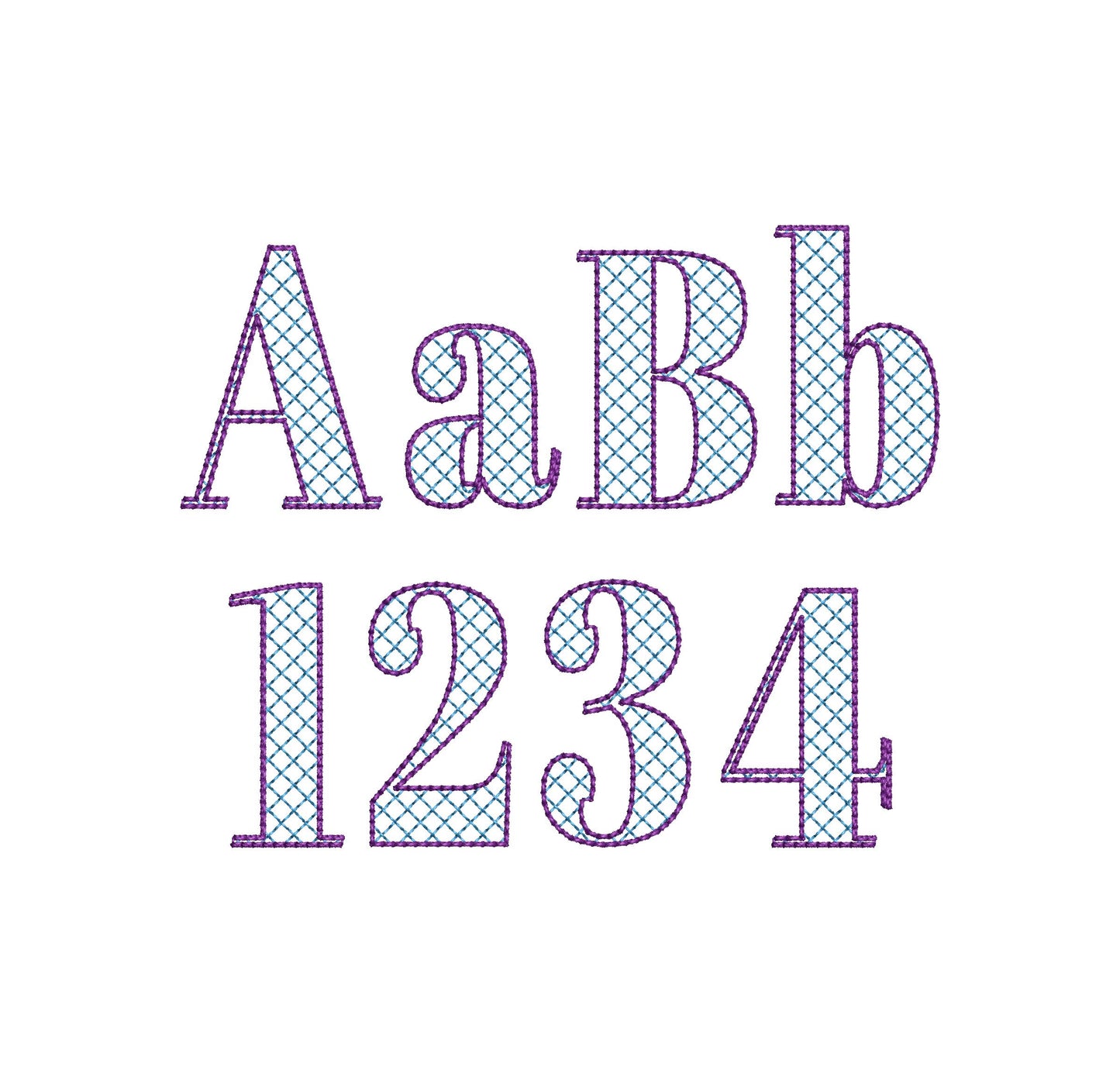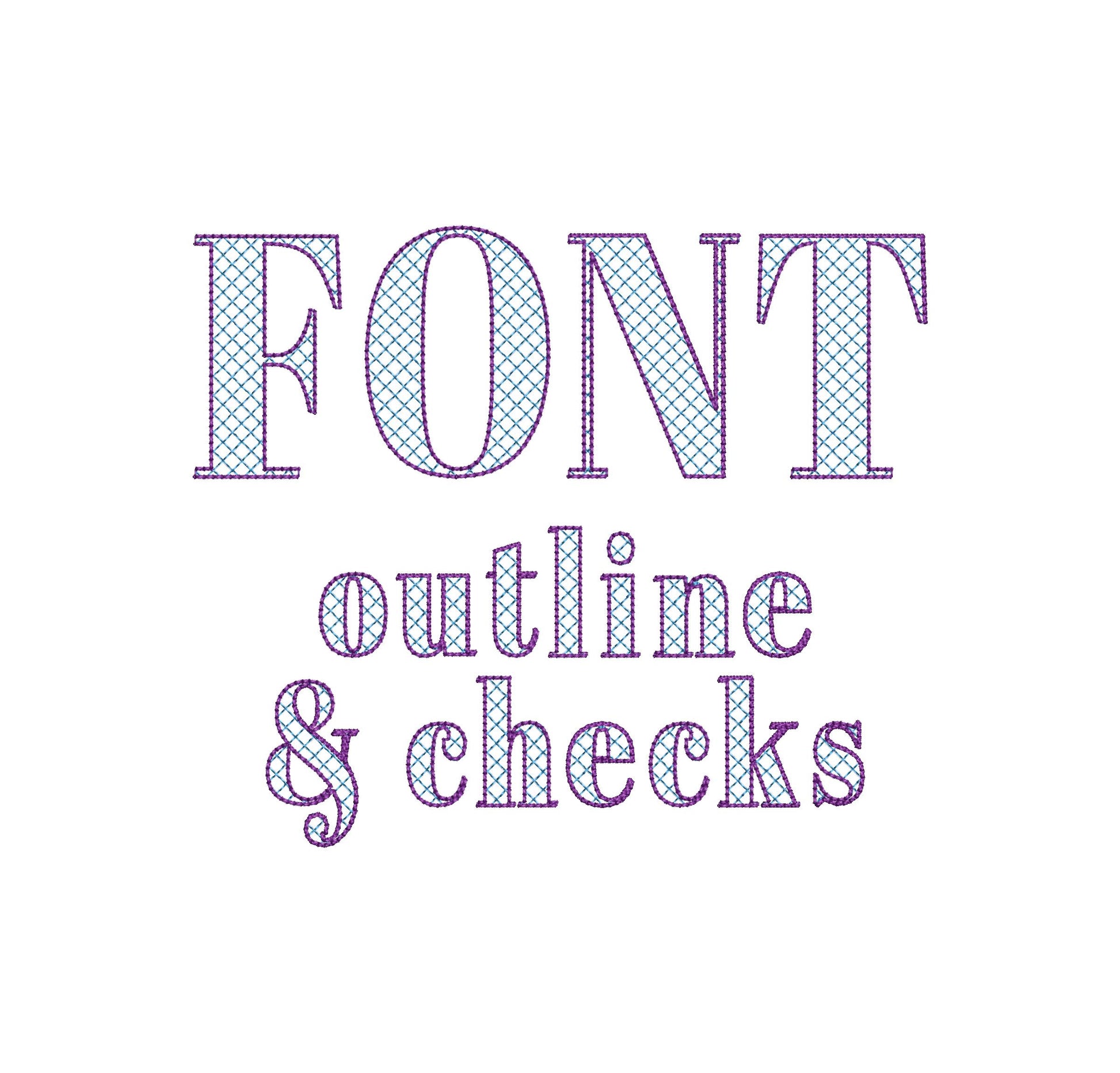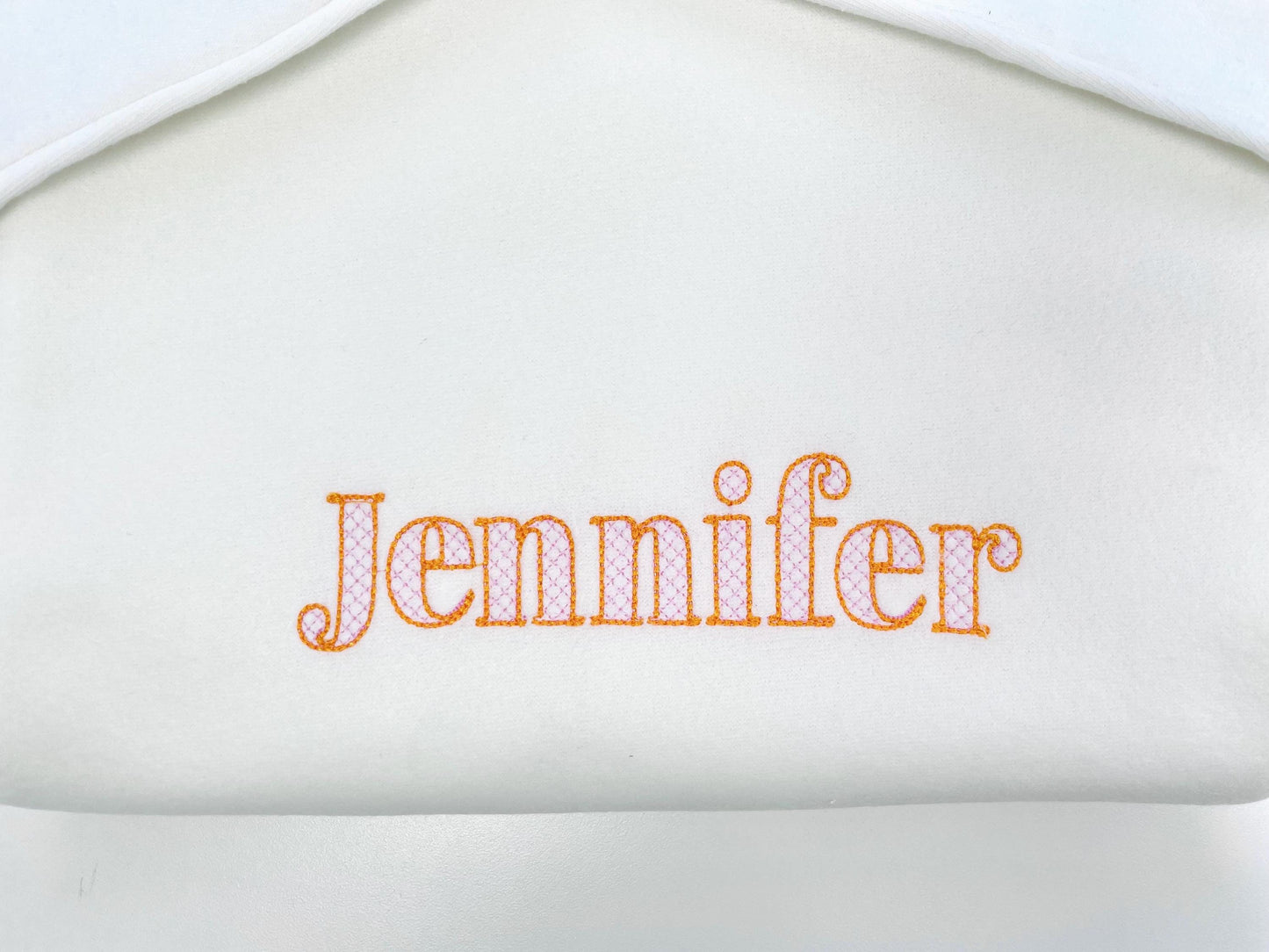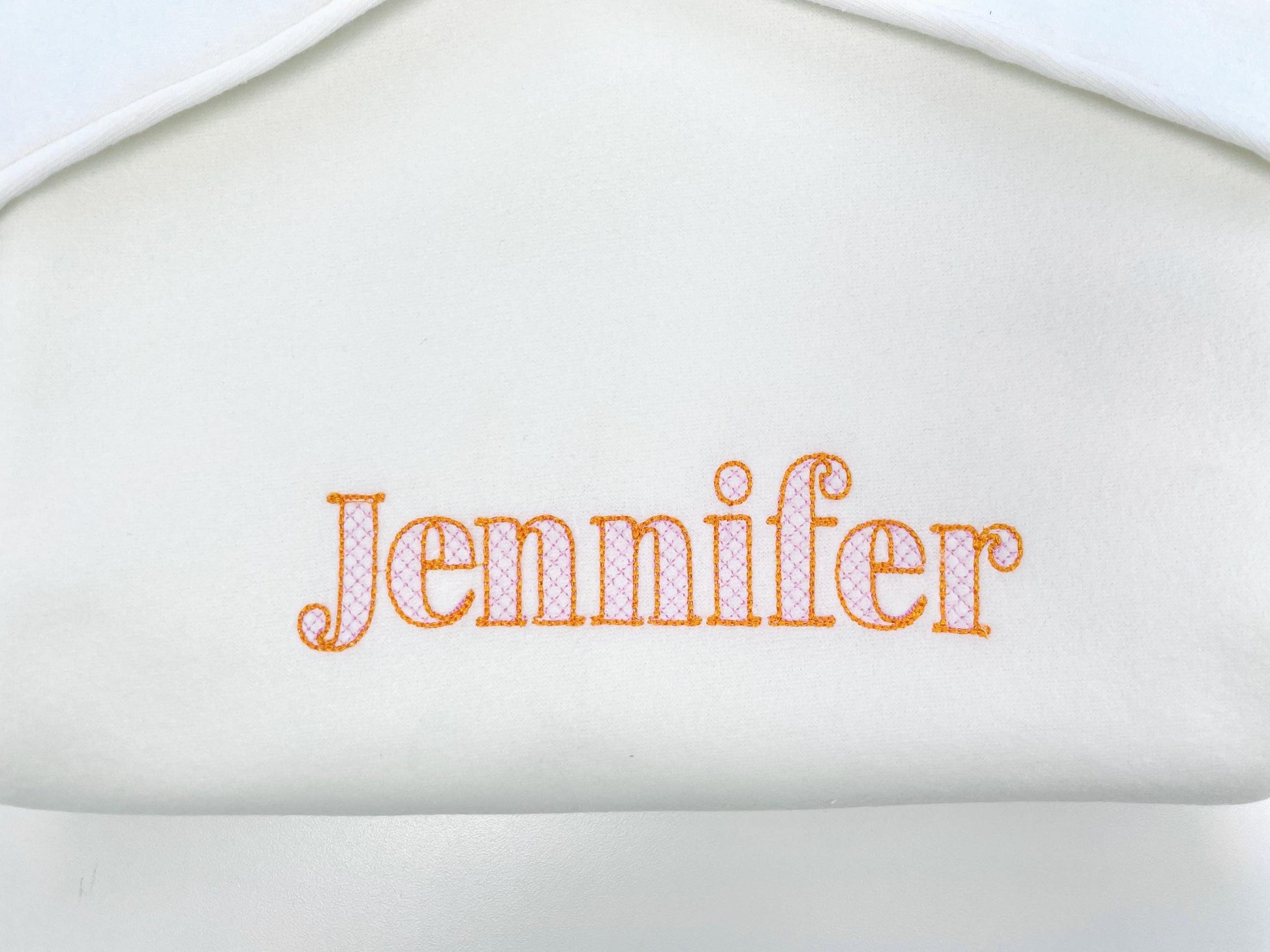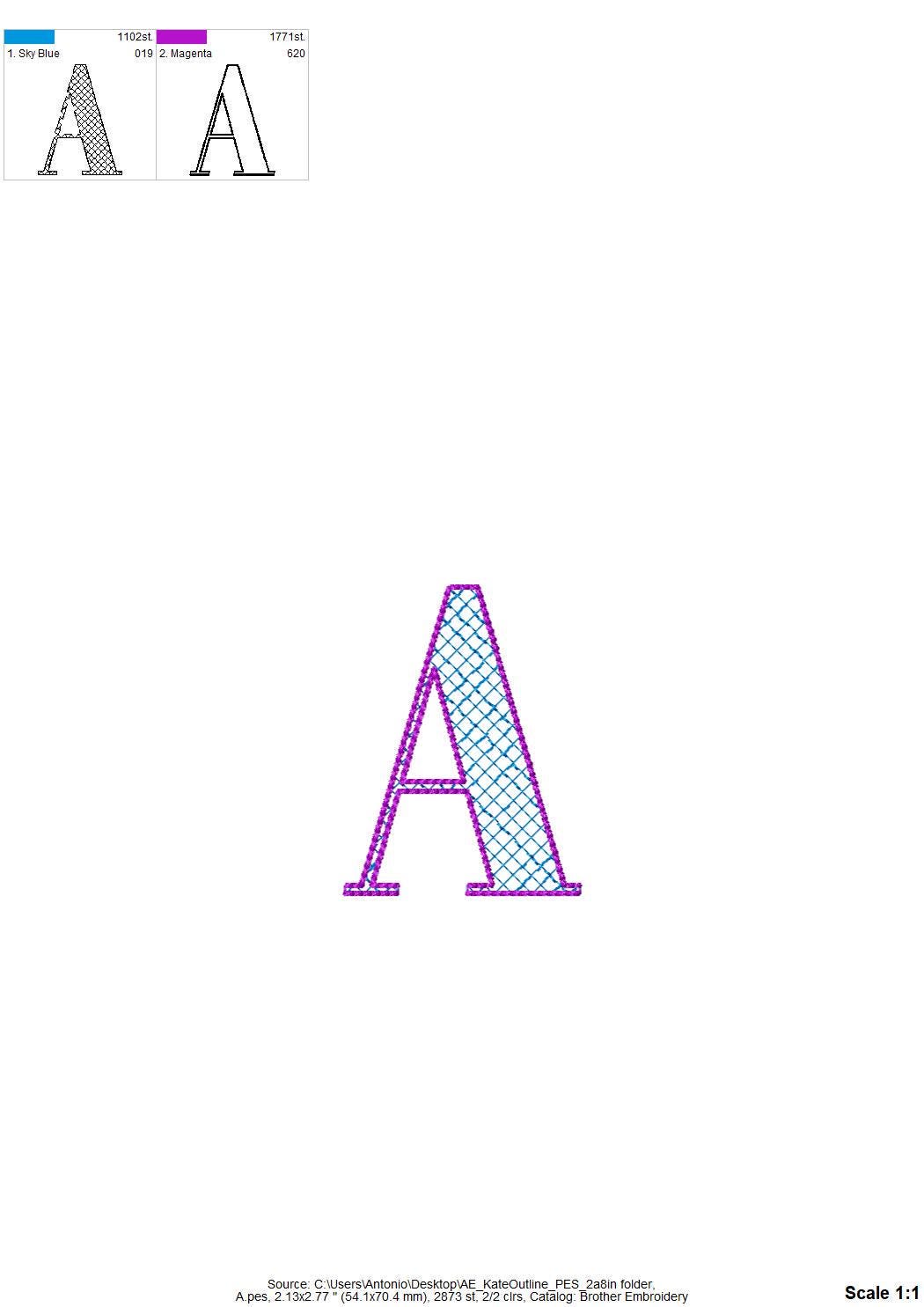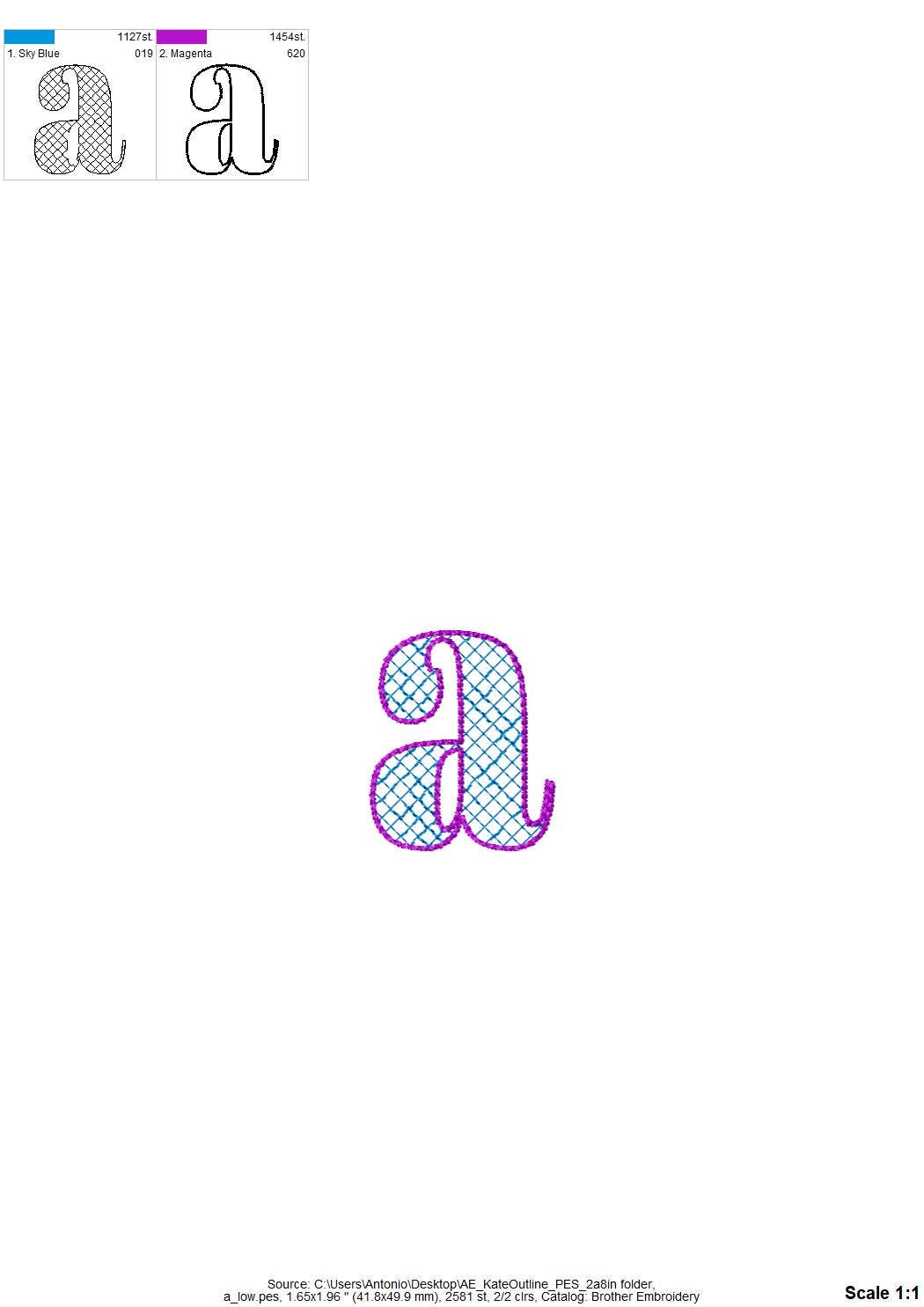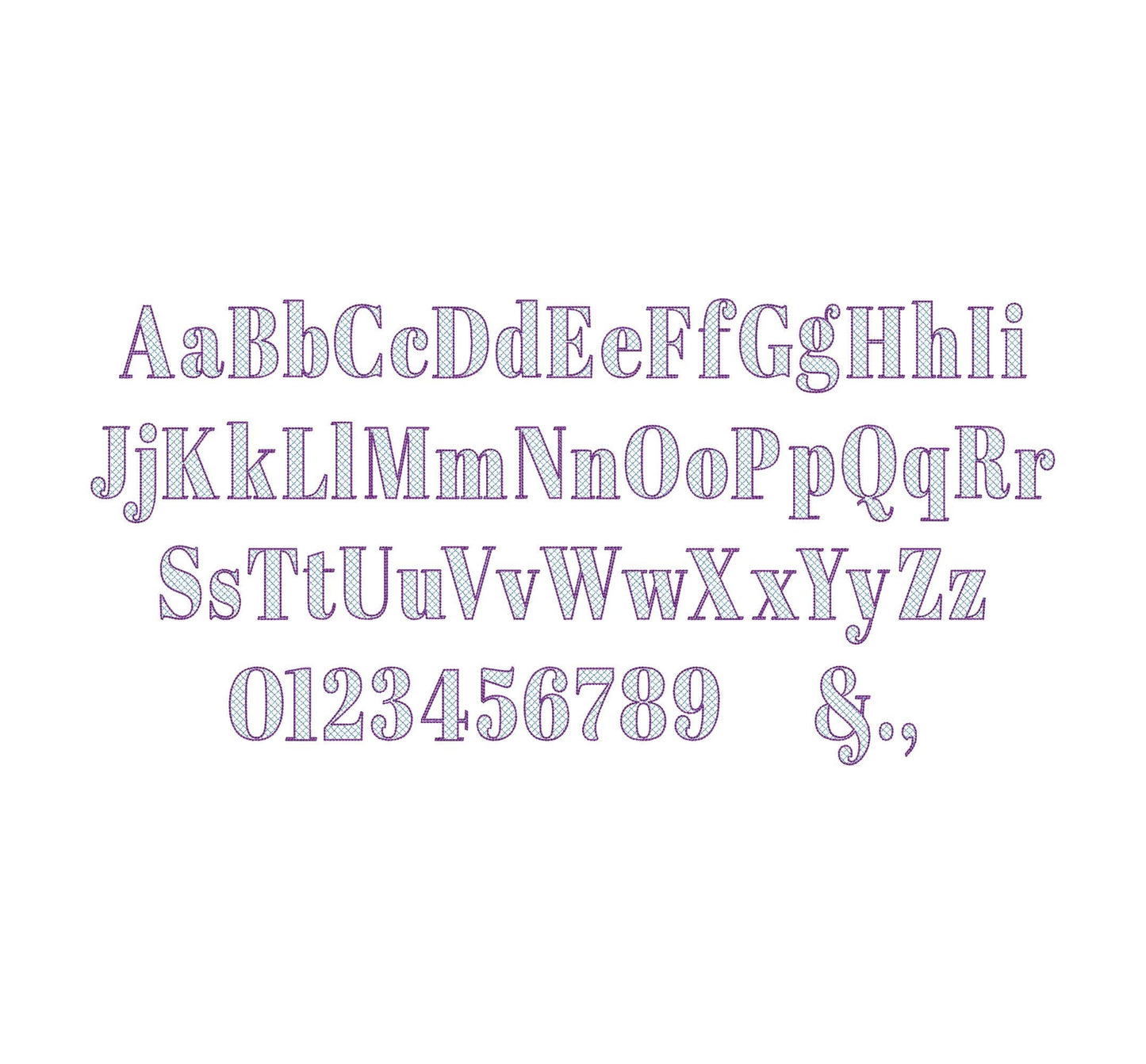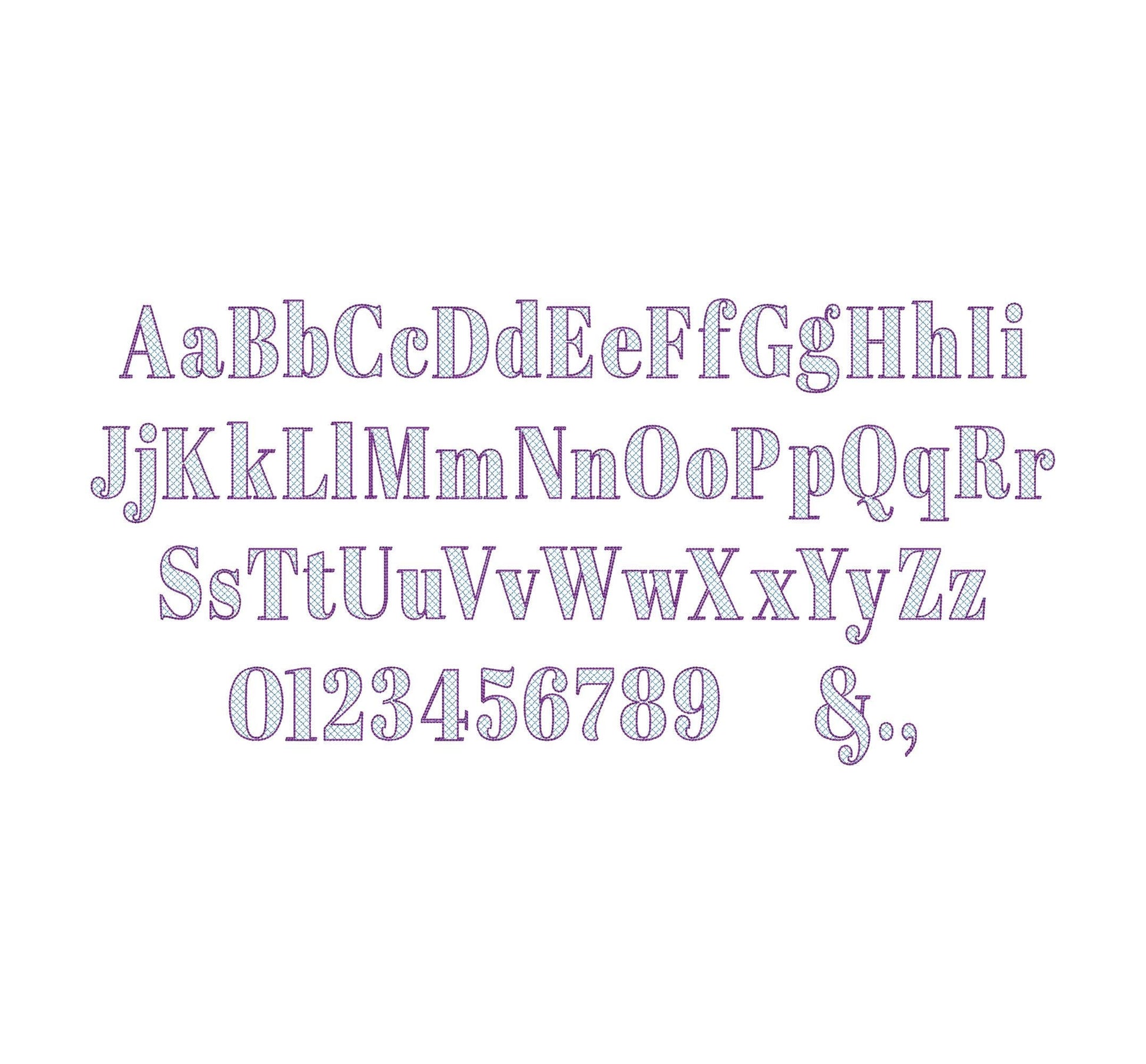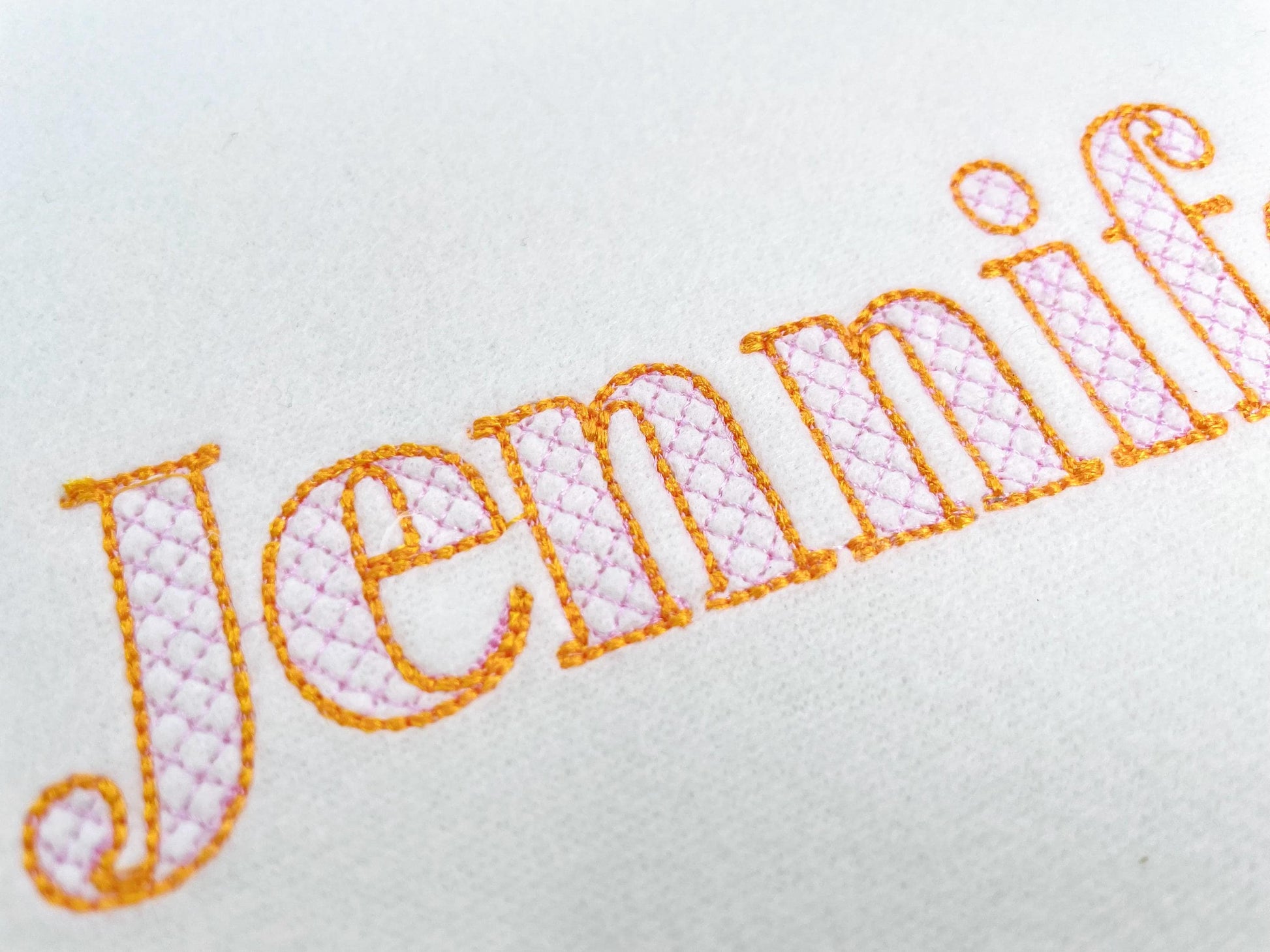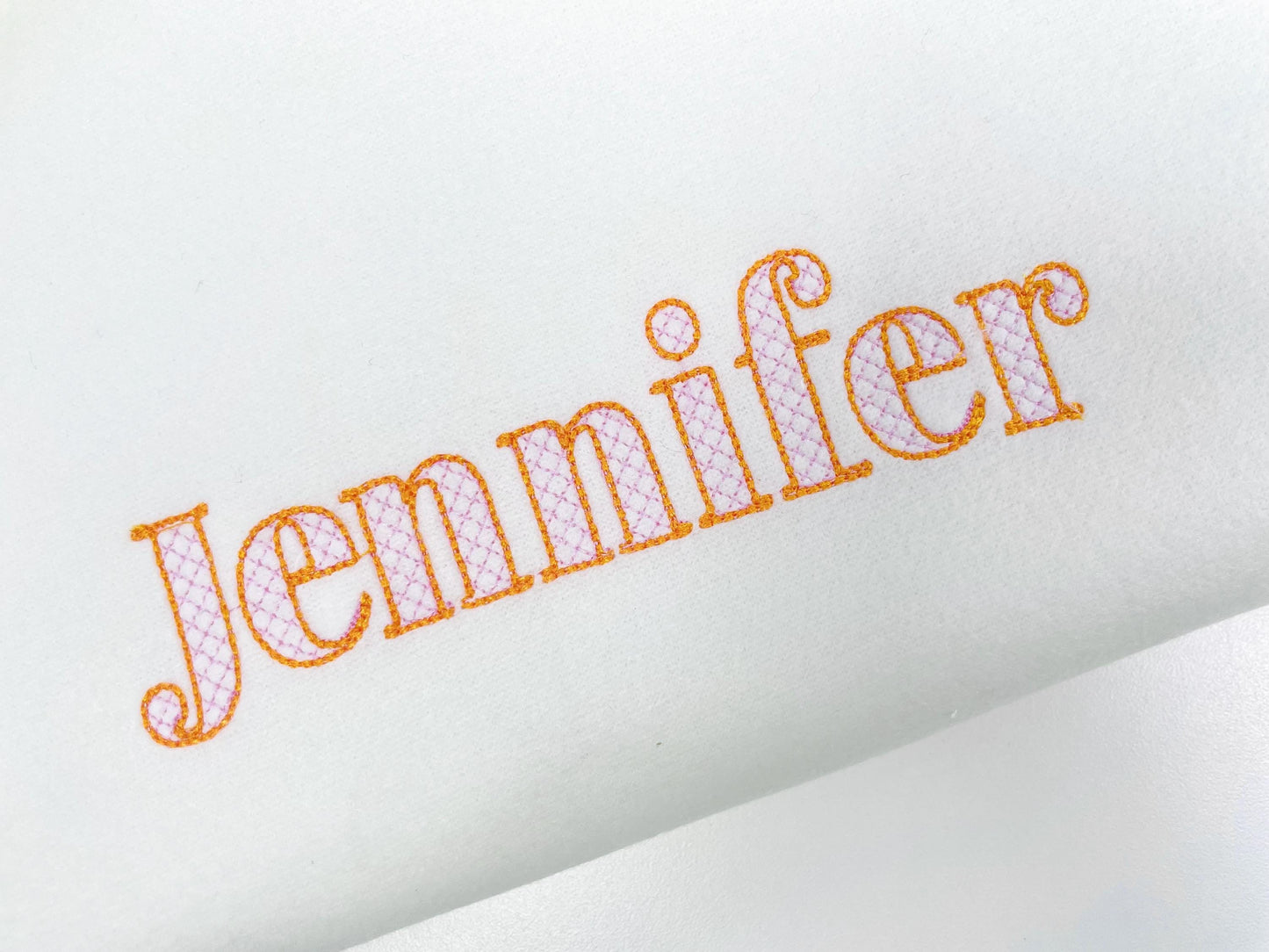
Or click to open the linkKate, an elegant block font with a check pattern and outline; the checks are part of the stitching and the fabric shows through. Classy for names and monograms.
Uppercase and lowercase letters, numbers 0 to 9 and punctuation, in seven small sizes: 0.9, 1.1, 1.4, 1.8, 2.2, 2.8 and 3.5 inches.